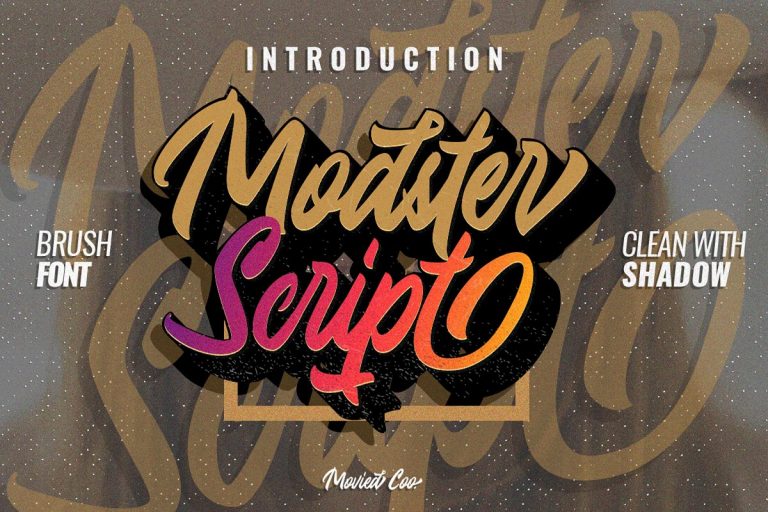
Modster Script Font
A new stylish trendy font. A lovely calligraphy font. These font are very unique and interesting for your design. Add it to your fonts collection right away. Introducing Modster Font! It is designed and shared by Moovied Co.. Modster Script Font is a collective inspired by urban style created from the style of handlettering with love. Modster comes with a set of styles, alternatives, present and extra shadow. This font is ideal for branding, logos, handwritten quotes, product packaging, headers, posters, merchandise, social media books / cover titles, special events, etc.